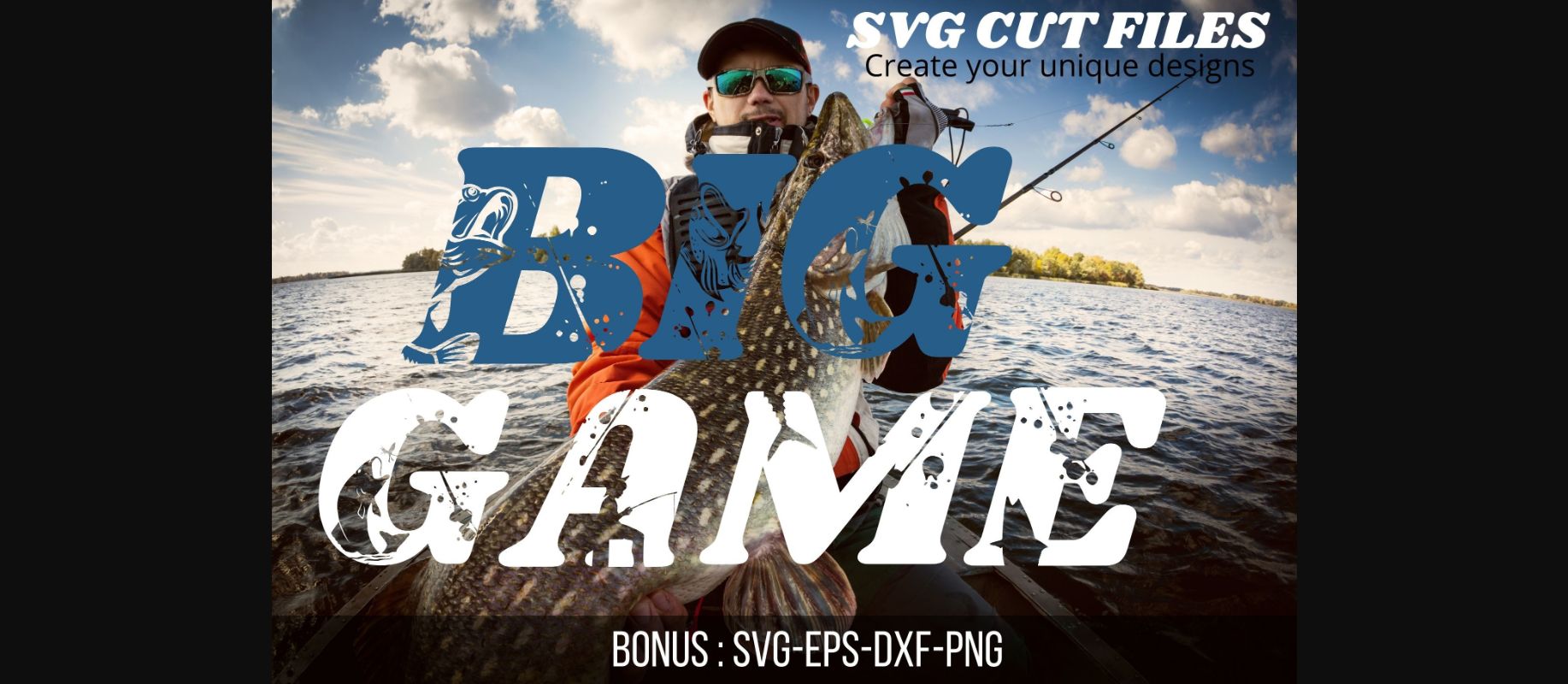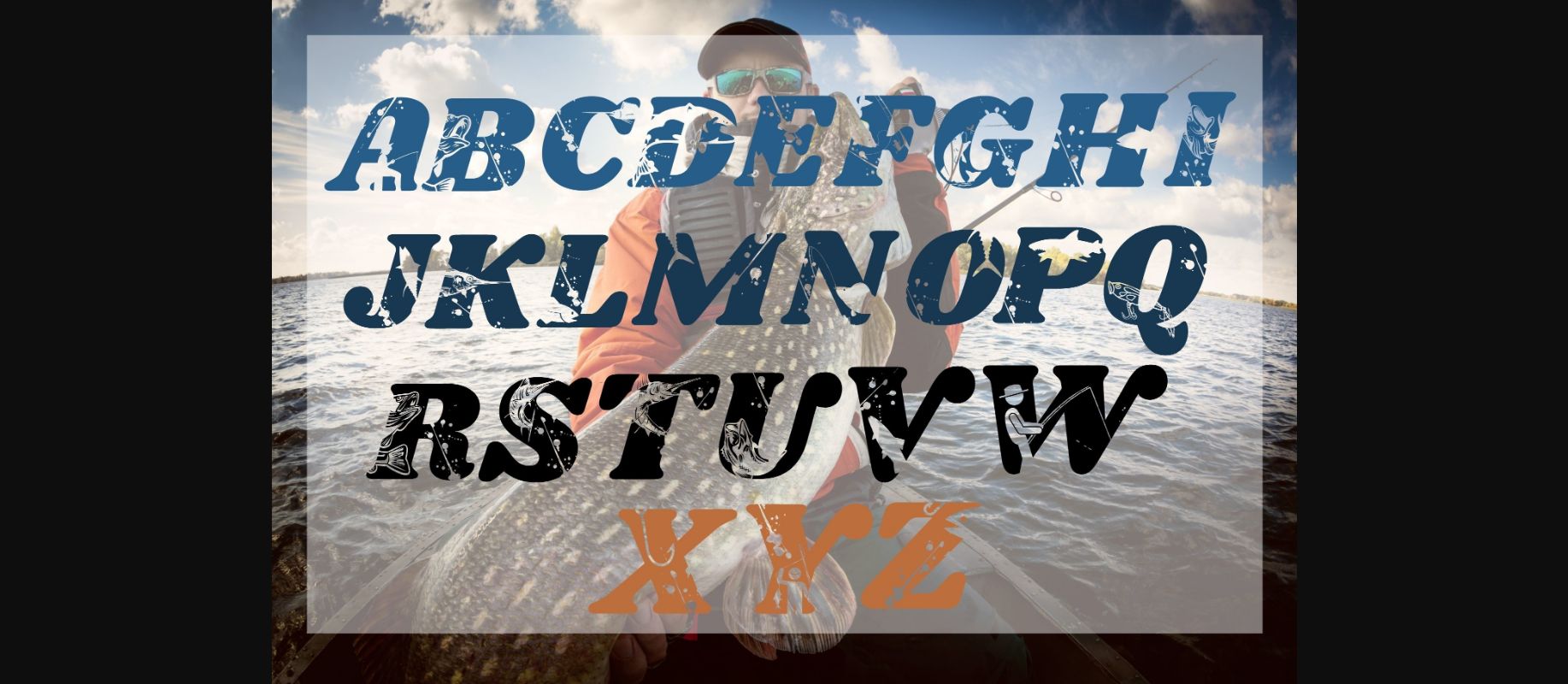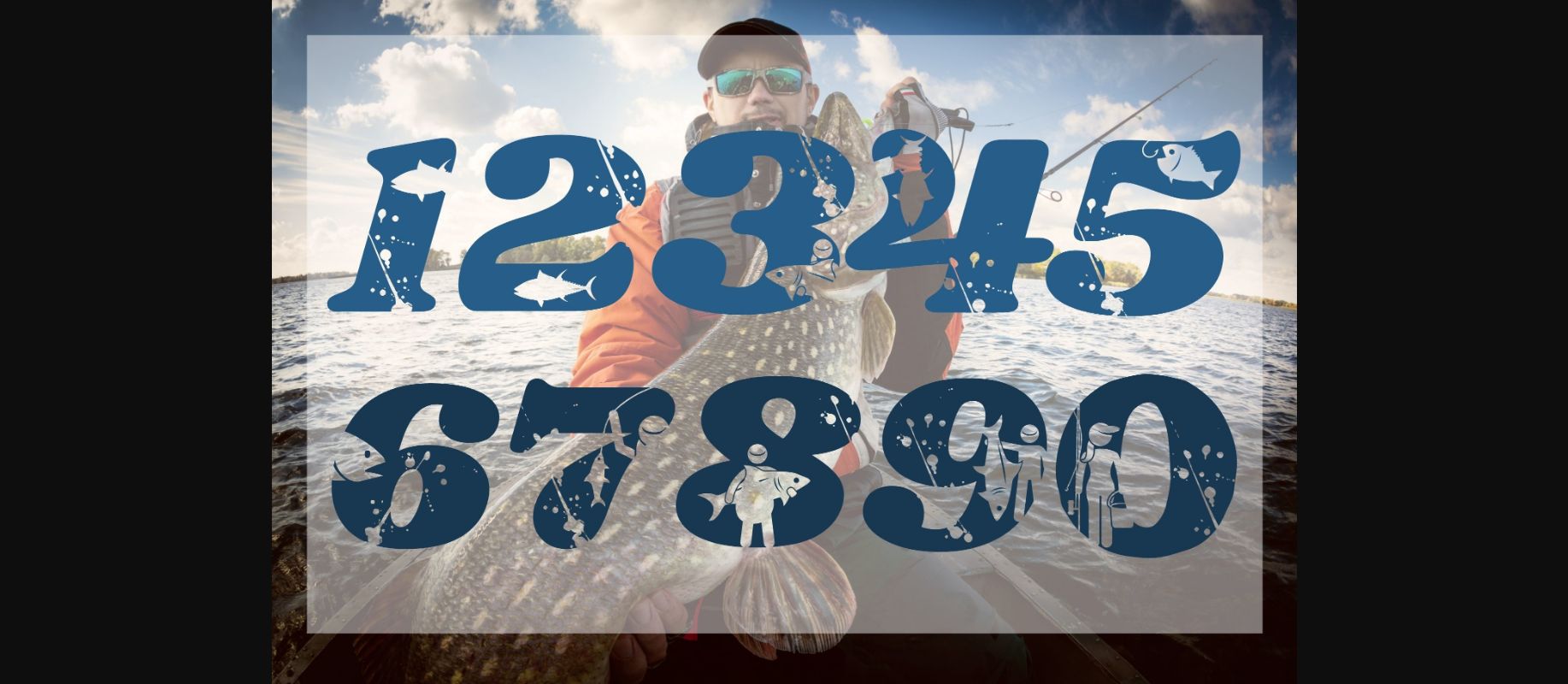
About Big Game Font
Big Game is a cool, useful and unique decorative font. You can use it for various projects, such as blog posts, logos, branding, ads, invitations, greeting cards, planners, photo albums, decorations, and much more. Add it to any of your designs, and enjoy the results!